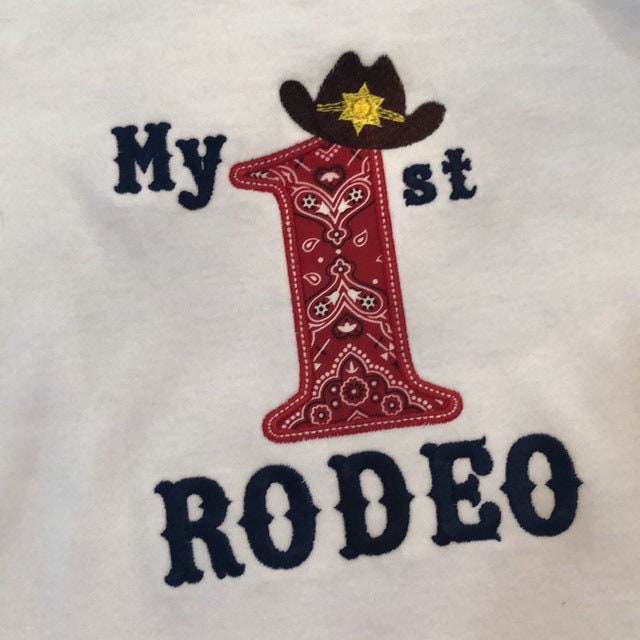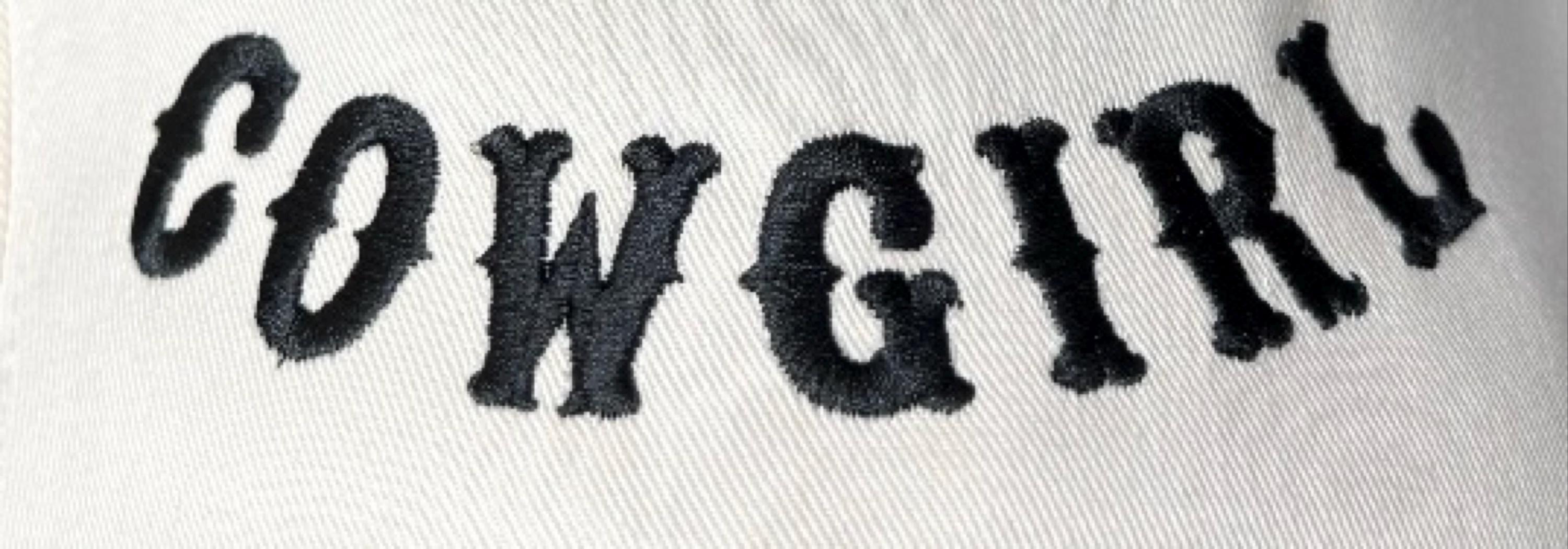
Western style Embroidery Font satin stitch machine embroidery designs Alphabet uppercase lowercase numbers Mini sizes 0.6 up to 1.2 inch BX
Entire alphabet uppercase and lowercase letters, and numbers.
Очень красивый м качественный шрифт.
The stitching came out beautifully with this font!!! NO complaints!! I’ve bought a few fonts (other accounts) and none have been as clean as this one. I’m. Obsessed. 😍🤩